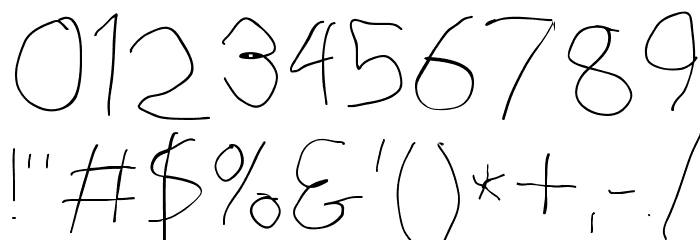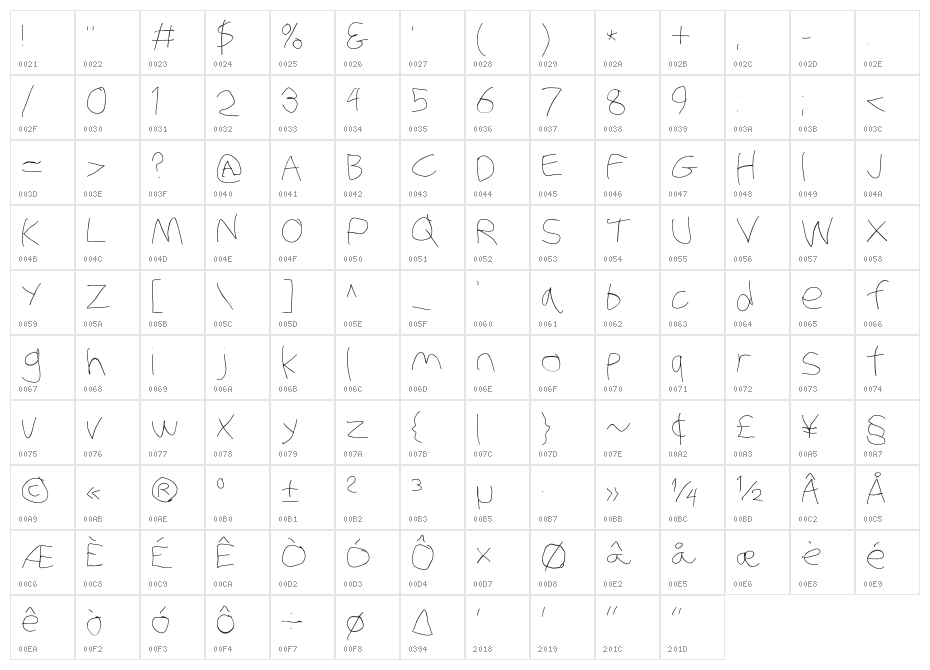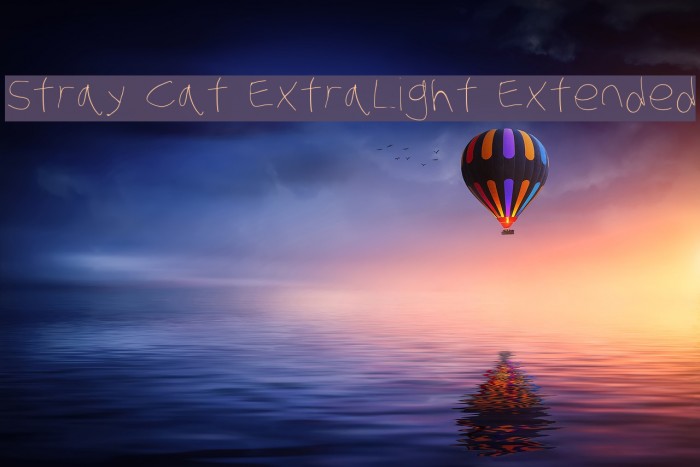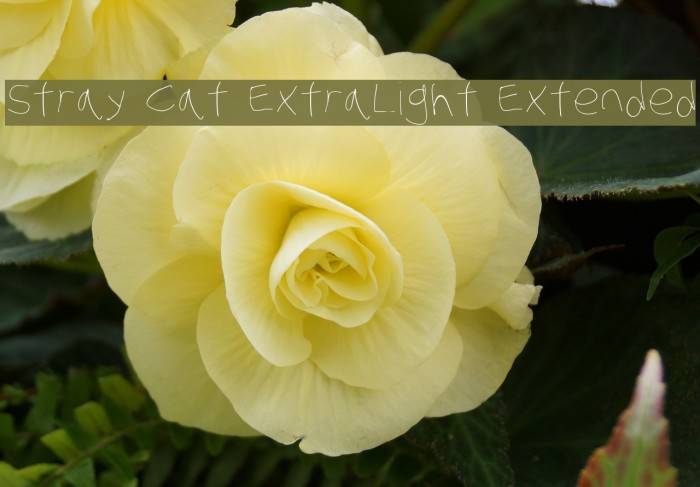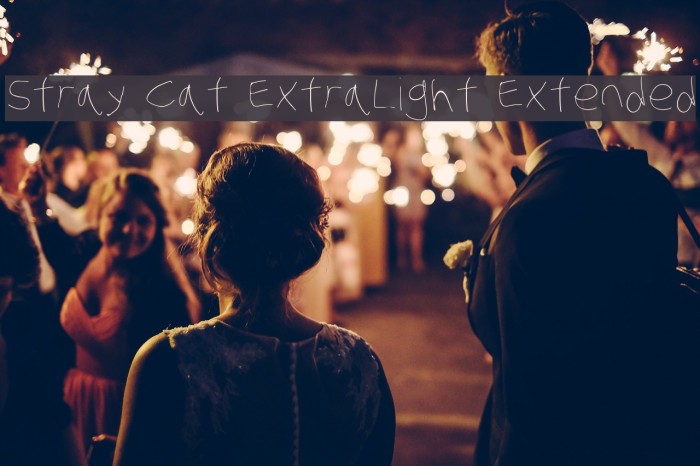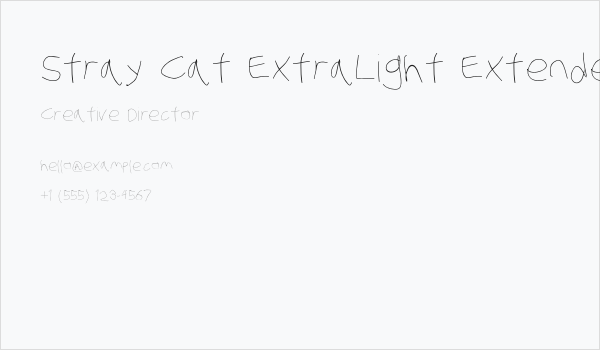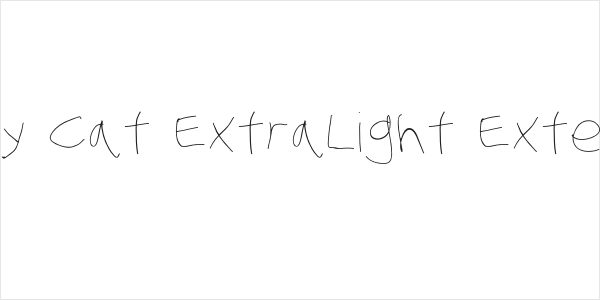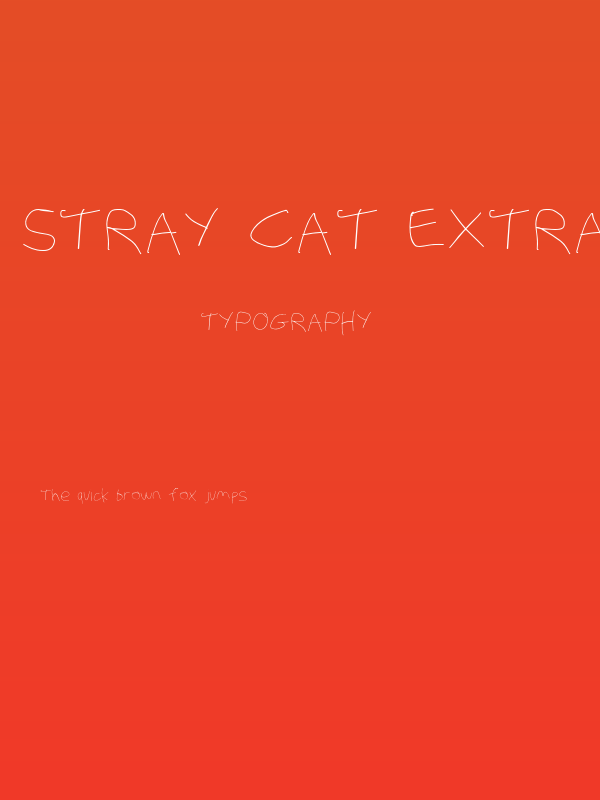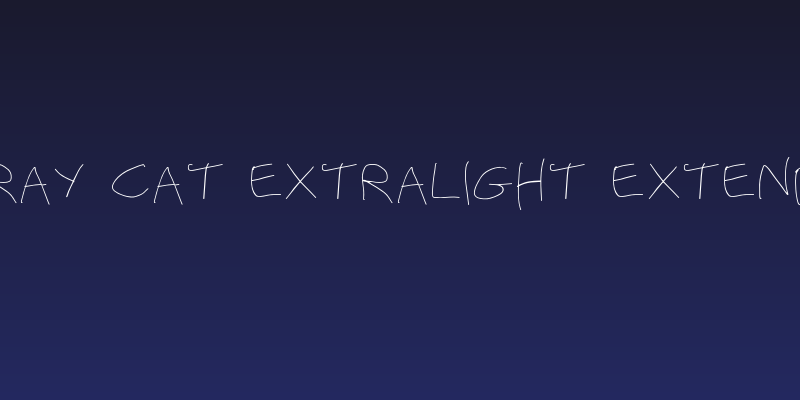
Stray Cat ExtraLight Extended Font
Stray Cat ExtraLight Extended Description
This font exhibits a playful and casual handwritten style, characterized by its thin strokes and extended letterforms. The letters have a loose, freeform appearance, giving off an informal and relaxed vibe. The uppercase and lowercase letters maintain a consistent style, with a slight tilt and irregularity that adds to the hand-drawn aesthetic. Numbers and special characters follow the same whimsical design, making the font suitable for projects that require a personal touch. The overall look is light and airy, with a sense of spontaneity and creativity.
| Use Case | Logos, Invitations, Informal Text |
| Proposed Projects | Ideal for greeting cards, personal blogs, children's books, and creative branding. |